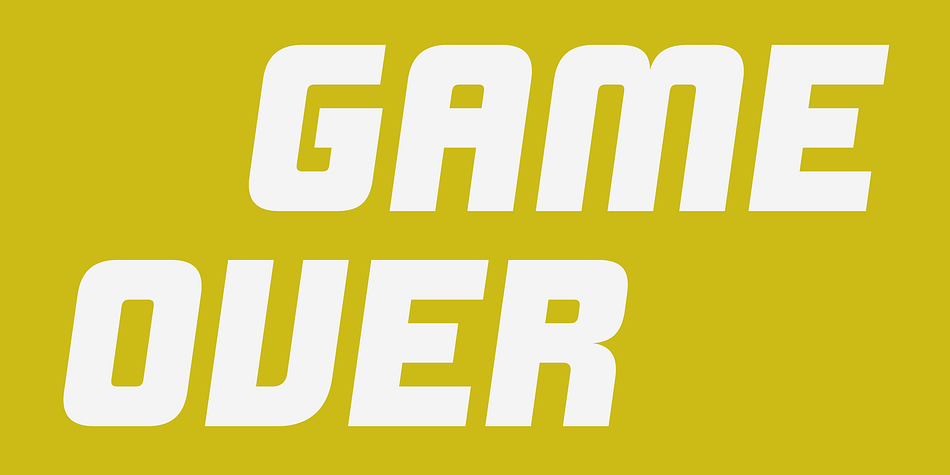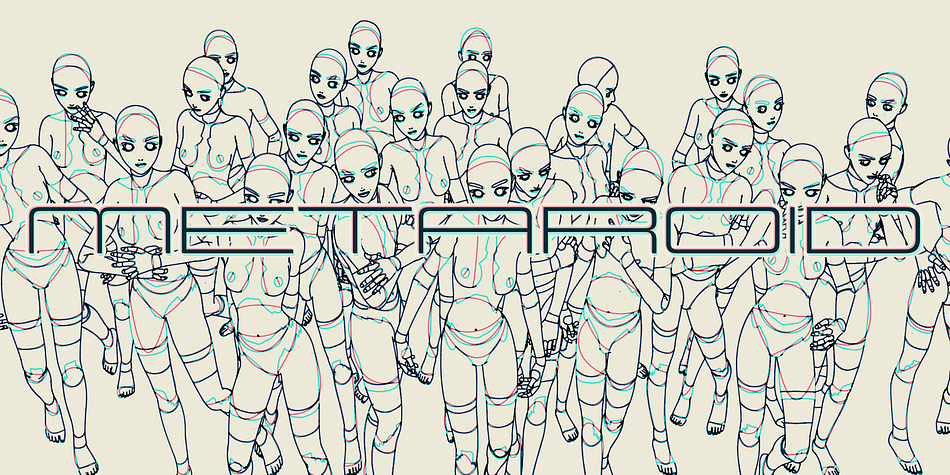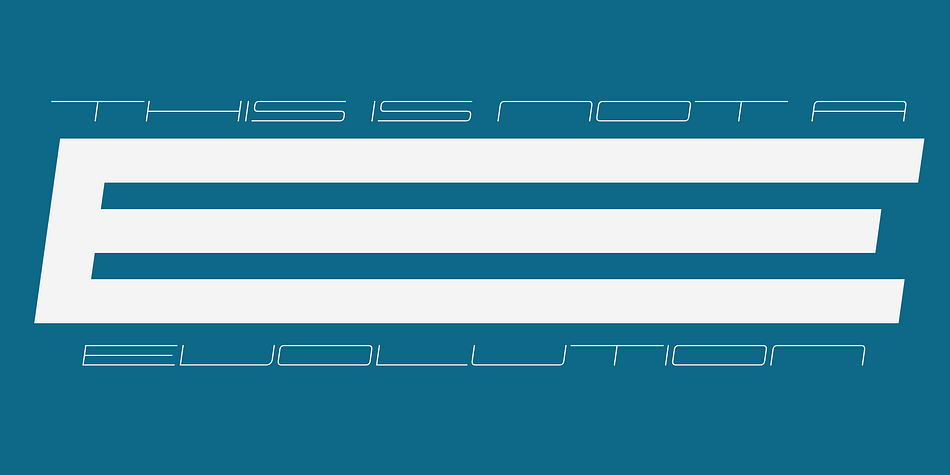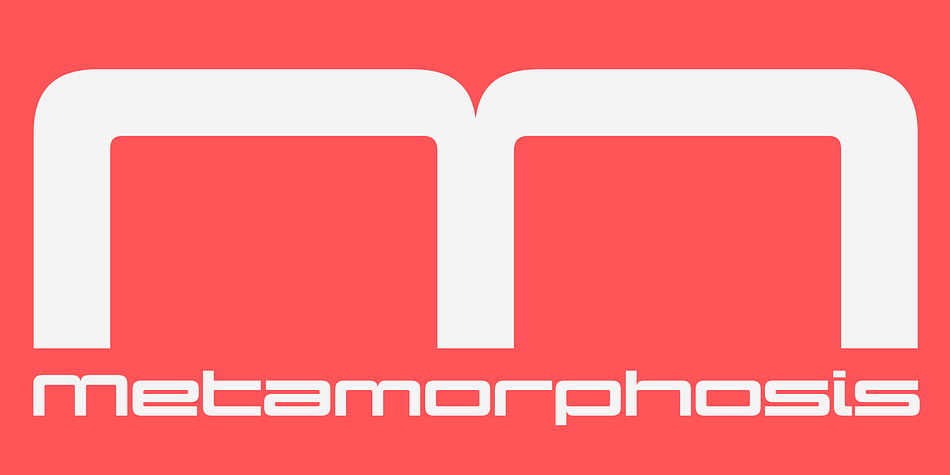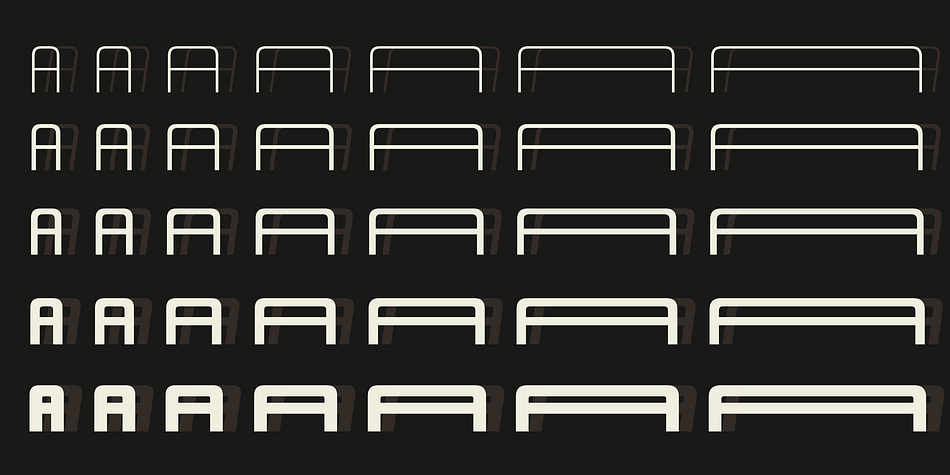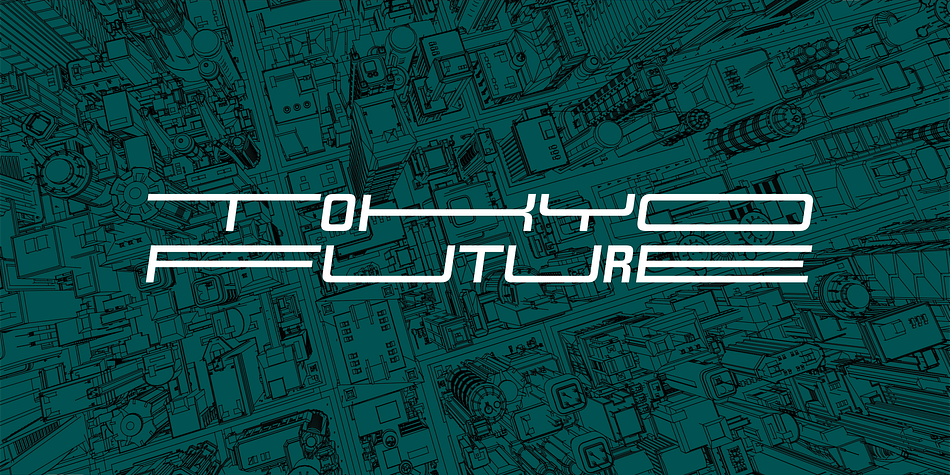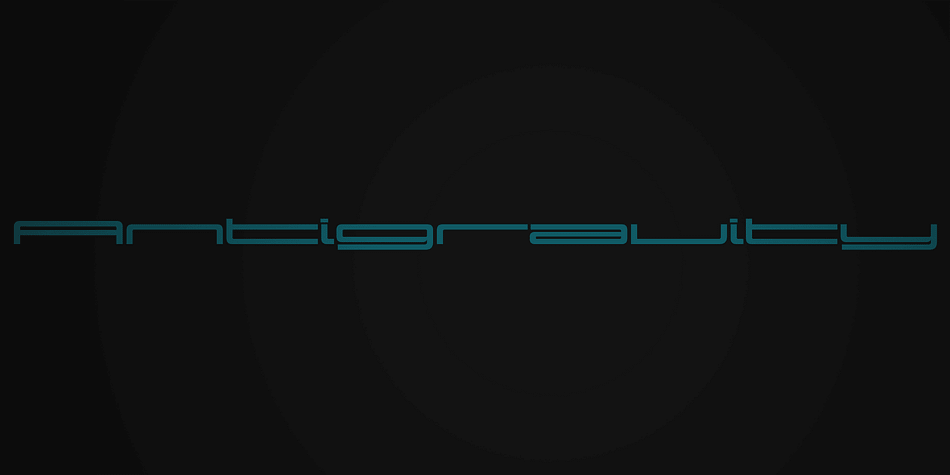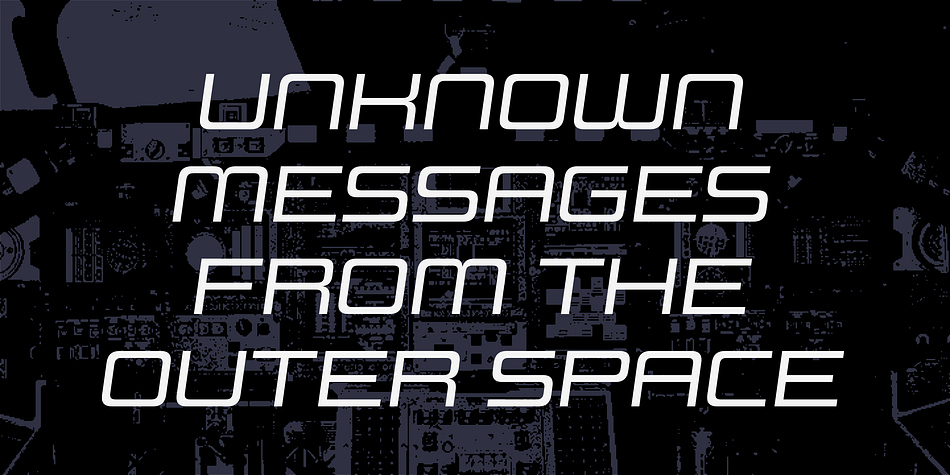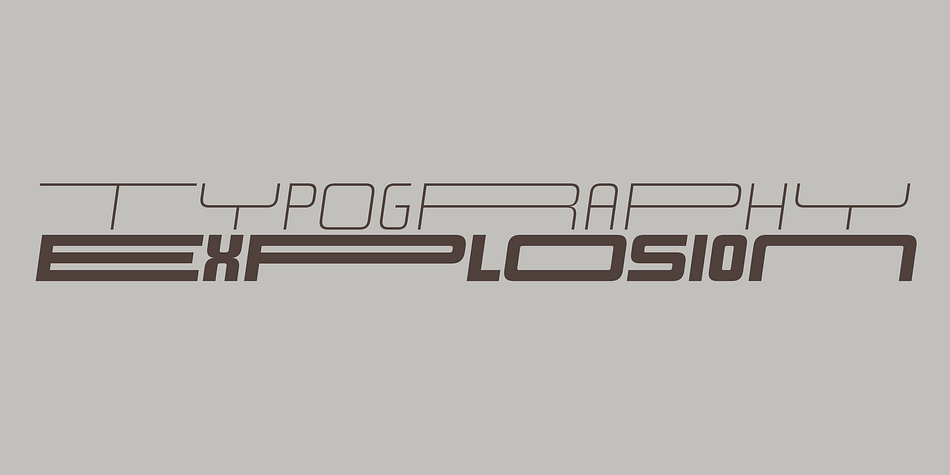
Design System B is a sans serif font family. This typeface has ten styles and was published by Dharma Type.
Design System is a great type system consisted of 5X7X2=70 font styles from 70s-style simple square sans to the widest style of all time that are best for titles, logo and text.
Their simple form does not limit the target of design and can be used for any creative work.
Additionally they all have been designed not to provide a feeling of strangeness when they are used in mixture each others.